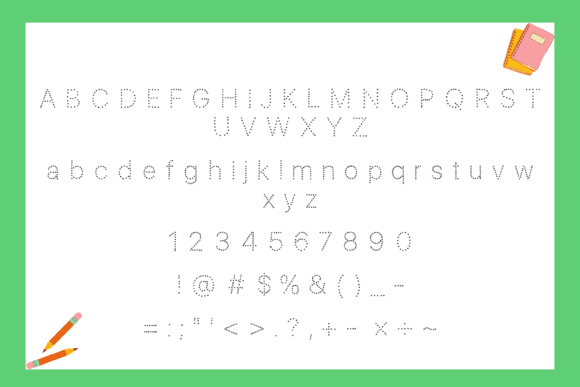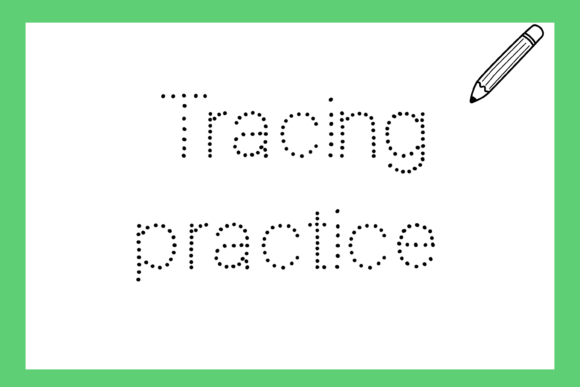
Exploring the World of Dot Font: A Fun and Creative Choice for Kids and Designers
Are you on the hunt for a unique and engaging font to help kids with their writing practice or to add a creative touch to your projects? Look no further than the Dot Font! This dash font has been gaining popularity among educators, designers, and crafters alike, and for good reason. In this article, we’ll dive into the world of Dot Font, exploring its benefits, uses, and why it’s an excellent choice for both kids and designers.
What is Dot Font?
Dot Font, as the name suggests, is a font that features dots instead of traditional lines or strokes. This distinctive characteristic makes it an excellent tool for writing practice, particularly for kids. The dots provide a clear guide for children to learn and improve their handwriting skills, making it an ideal choice for educators and parents.
Benefits of Using Dot Font for Kids
- Improved Handwriting Skills: The dots in the Dot Font help kids develop muscle memory and improve their handwriting skills, making it easier for them to write neatly and legibly.
- Enhanced Creativity: The unique dot pattern encourages kids to think creatively and have fun with writing, making the learning process more engaging and enjoyable.
- Builds Confidence: As kids practice writing with Dot Font, they’ll become more confident in their abilities, leading to a more positive attitude towards writing and learning.
Why Designers and Crafters Love Dot Font
While Dot Font is an excellent choice for kids, it’s also a versatile font that can be used in a variety of creative projects. Designers and crafters appreciate the font’s unique aesthetic, which adds a touch of whimsy and playfulness to any project.
- Creative Projects: Dot Font is perfect for creating eye-catching posters, flyers, and brochures that require a dash of creativity and fun.
- Crafting and Scrapbooking: The font’s dot pattern makes it an excellent choice for crafting and scrapbooking projects, adding a personal touch to your creations.
- Customization: With Dot Font, you can customize your projects to fit your unique style, making it an excellent choice for designers and crafters who value flexibility and creativity.
Tips for Using Dot Font in Your Projects
To get the most out of Dot Font, here are some tips to keep in mind:
- Experiment with Sizes and Colors: Try out different font sizes and colors to add visual interest to your projects.
- Combine with Other Fonts: Mix and match Dot Font with other fonts to create a unique and eye-catching design.
- Use for Headings and Titles: The dot pattern makes Dot Font an excellent choice for headings and titles, adding a touch of creativity to your text.
Dot Font is a versatile and engaging font that’s perfect for kids and designers alike. Whether you’re looking to help kids improve their handwriting skills or add a creative touch to your projects, Dot Font is an excellent choice. With its unique dot pattern and flexibility, it’s no wonder why Dot Font has become a favorite among educators, designers, and crafters. So why not give it a try and see how Dot Font can enhance your creative projects?